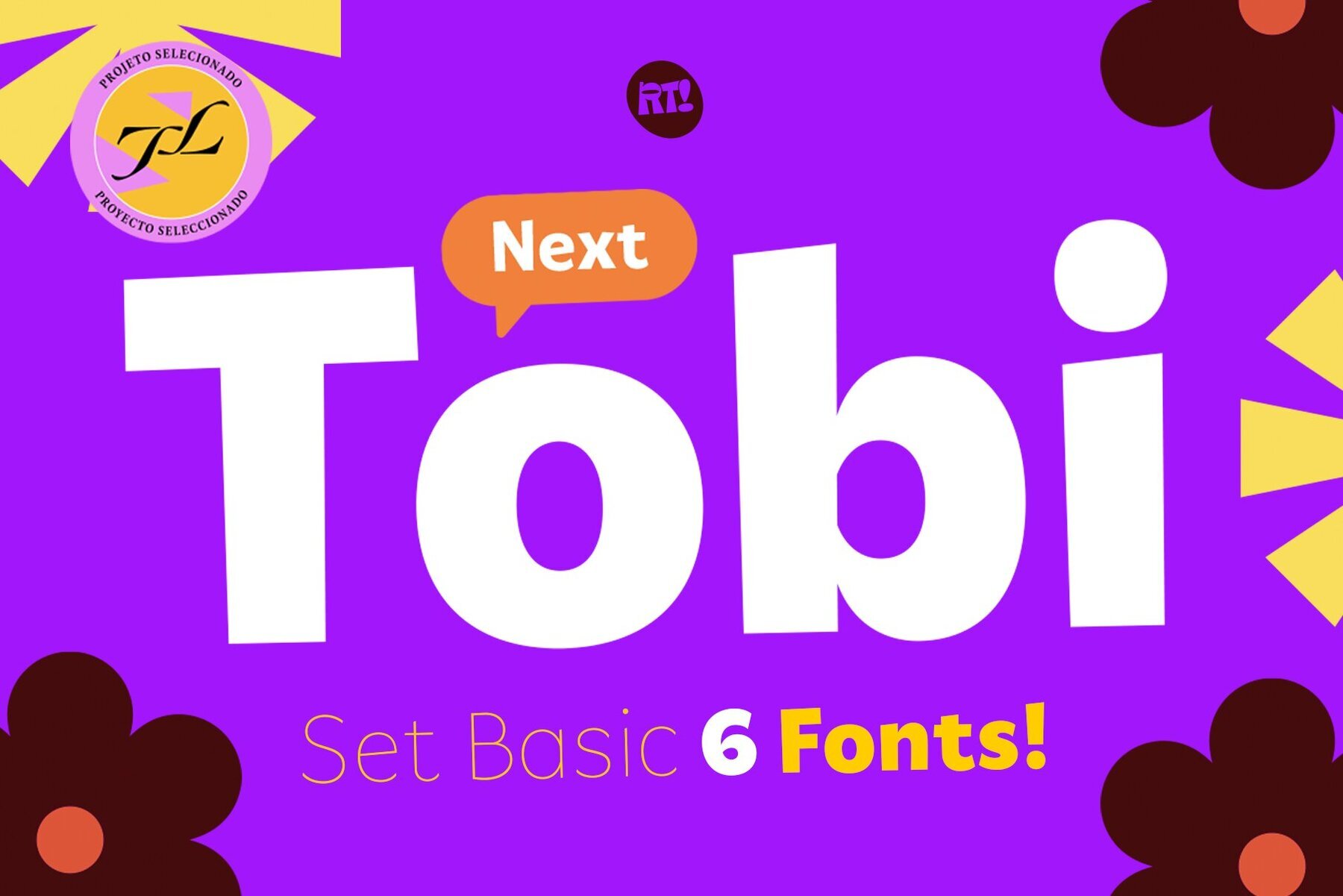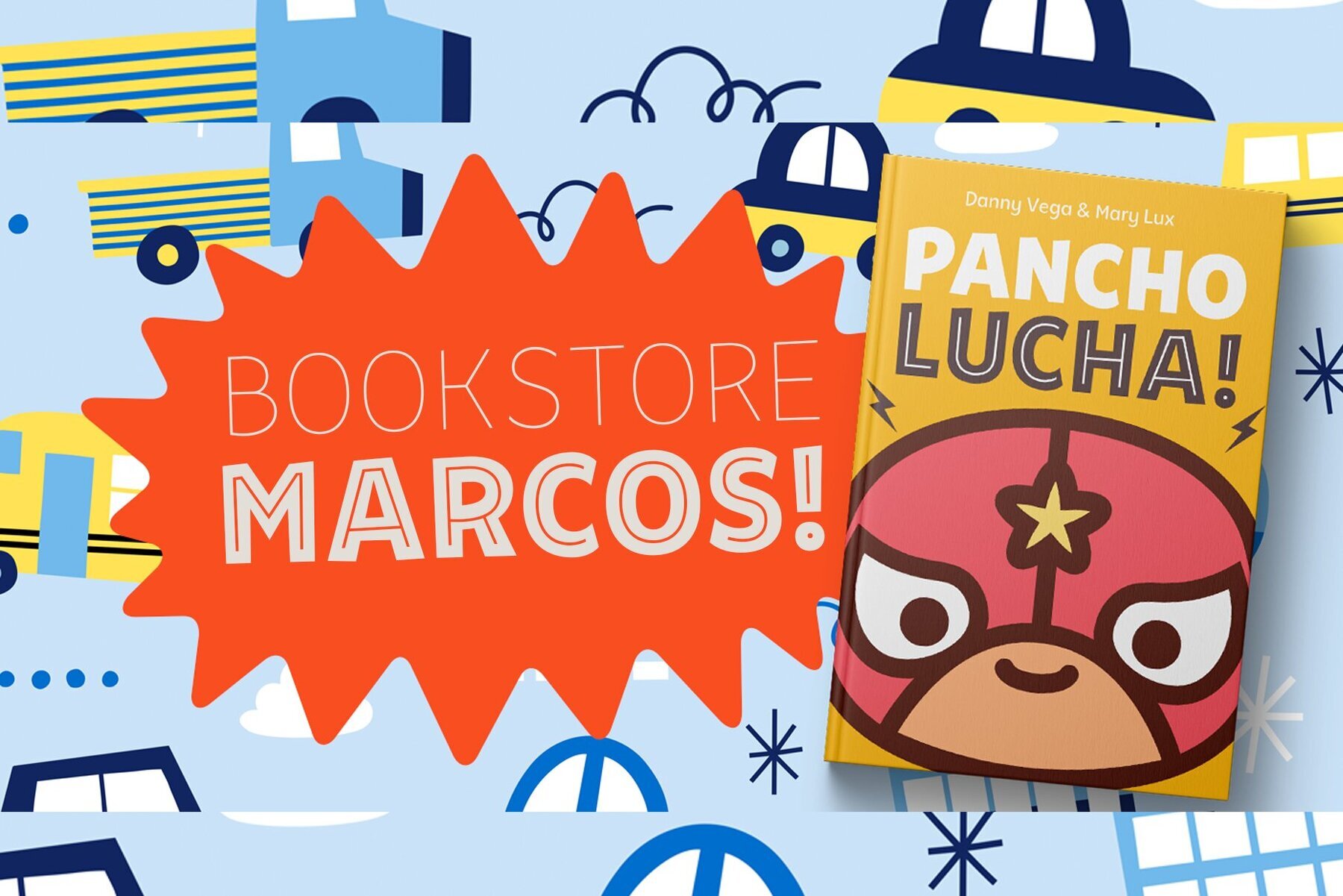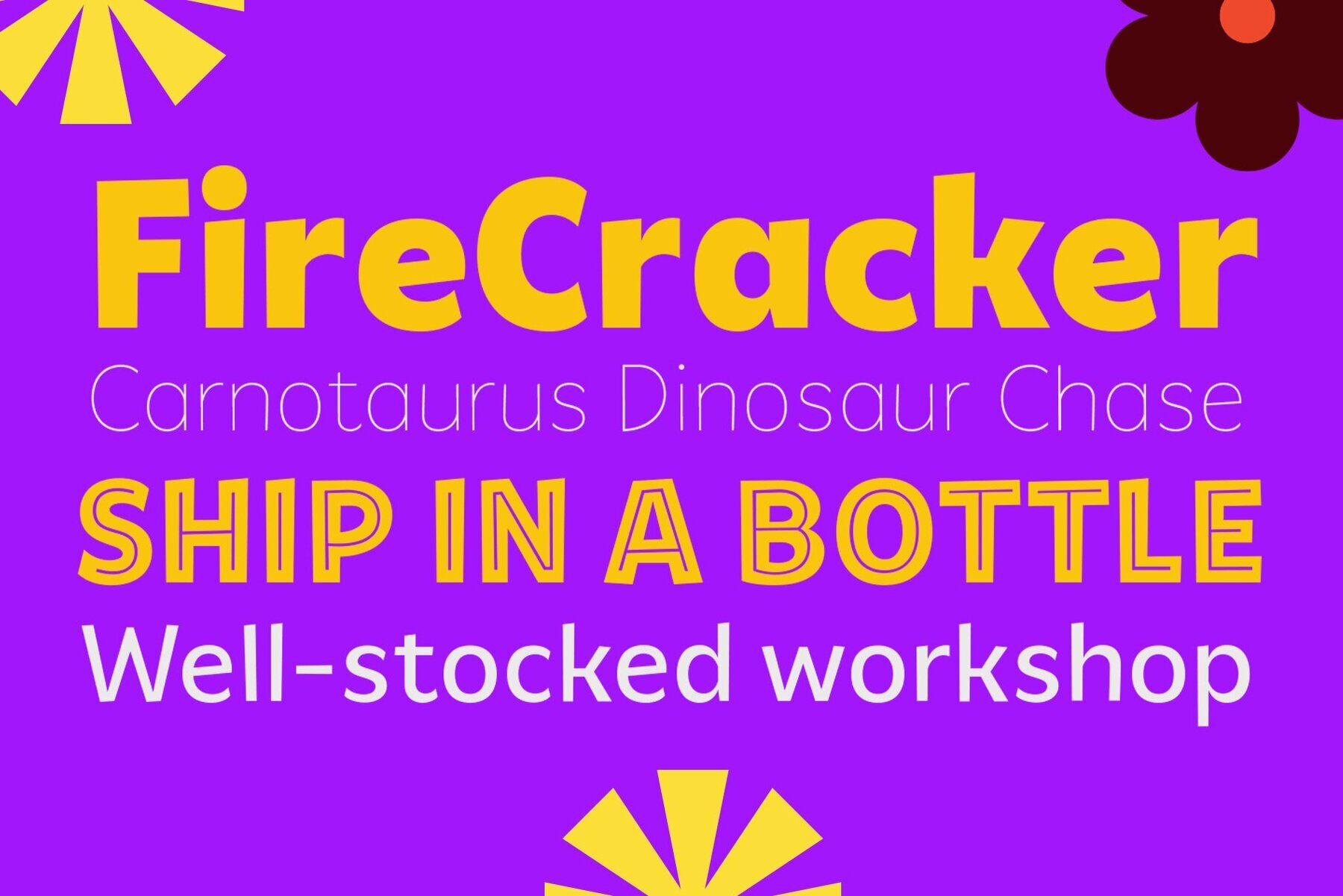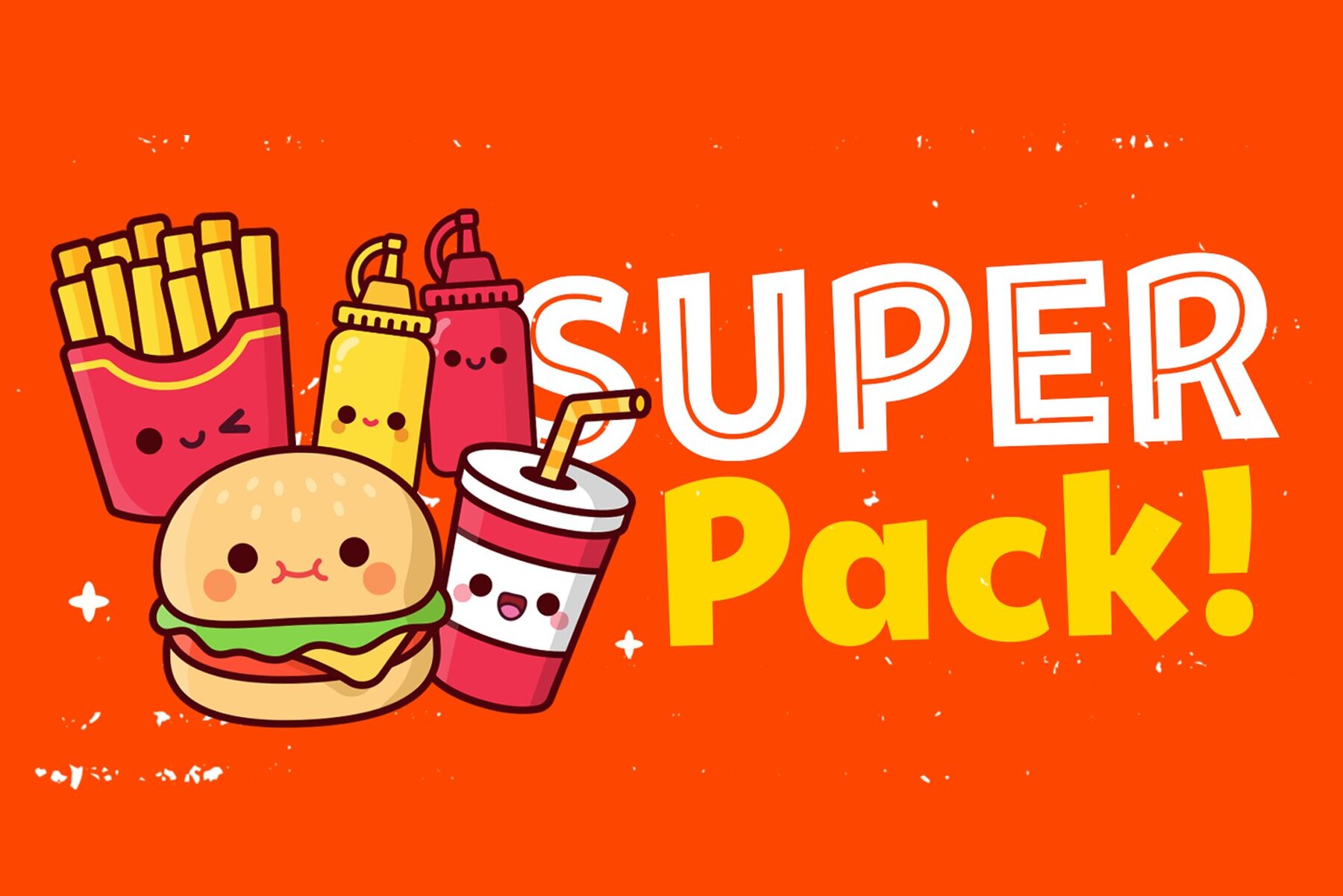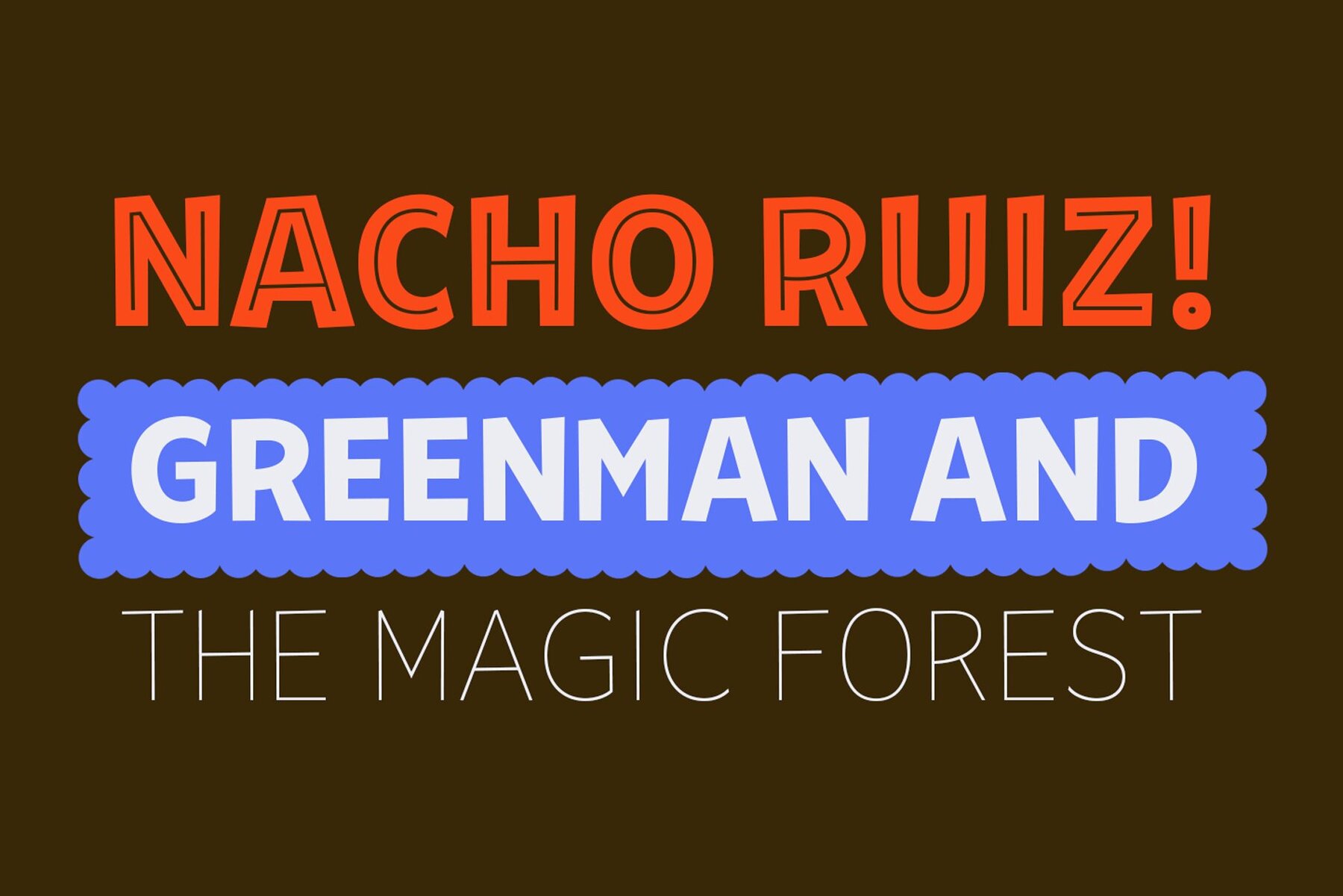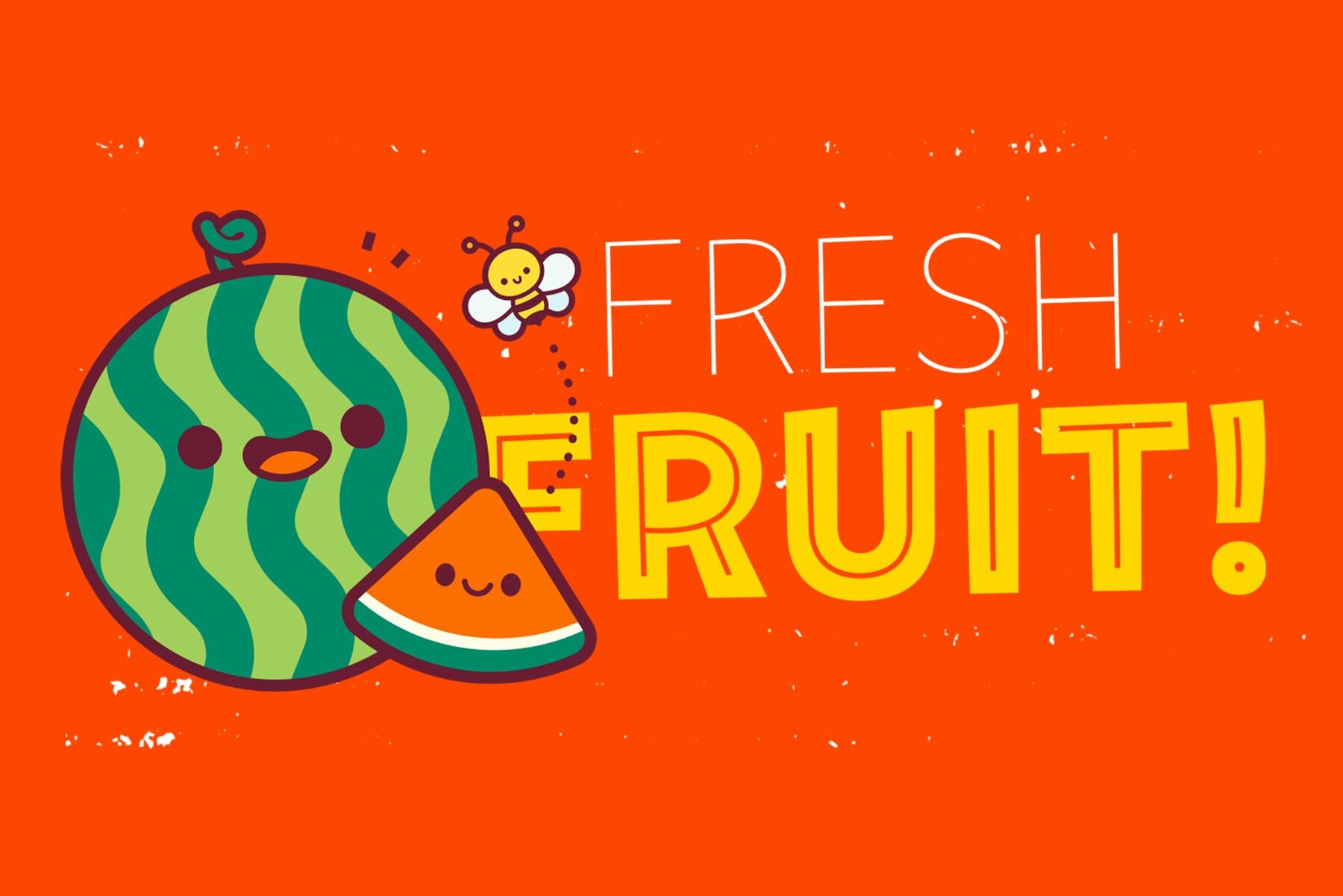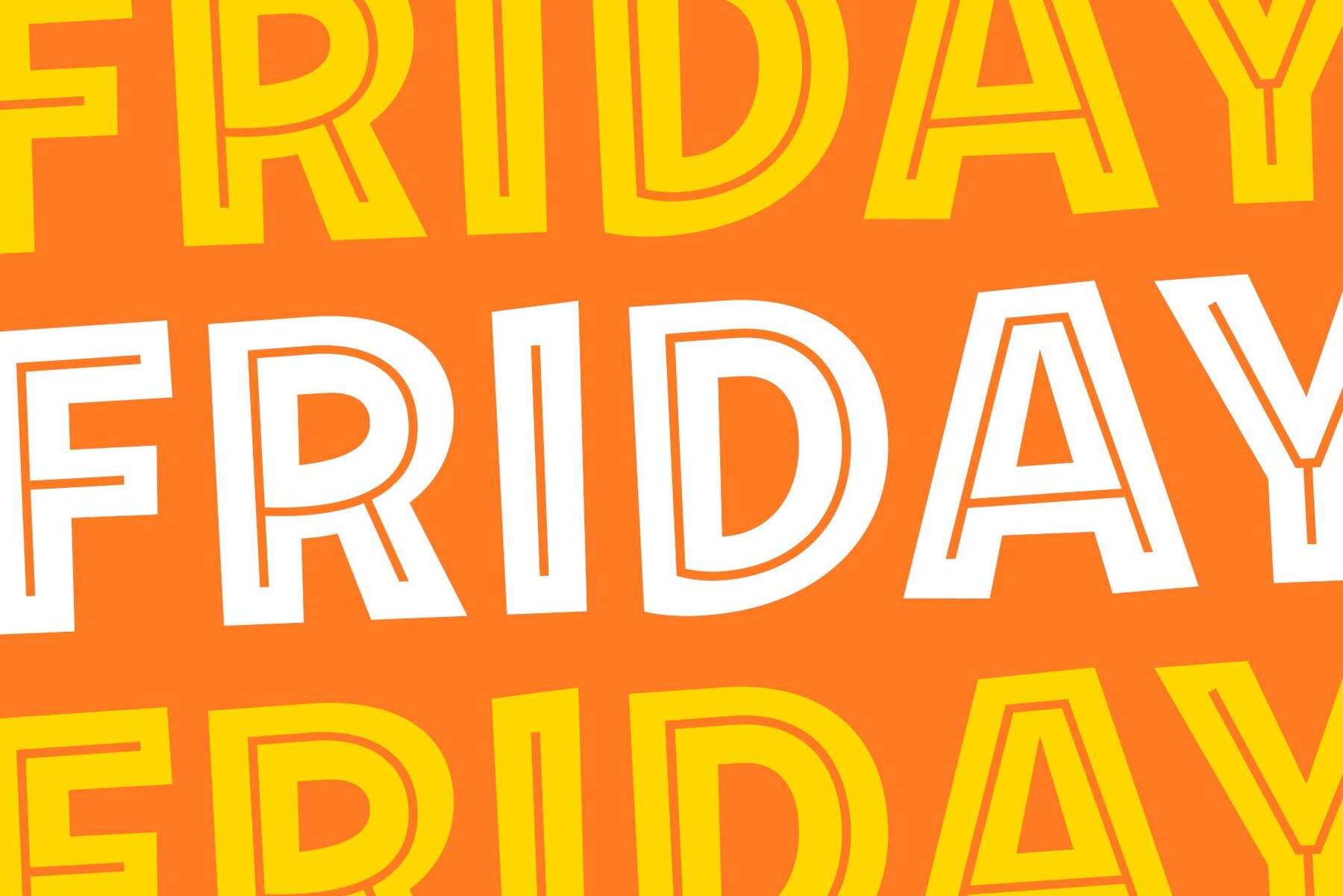
Tobi Next Font
Embrace the flexibility of Tobi Next, a thoughtfully designed typeface collection that brings together six unique fonts for your creative projects. Whether you're working on poster art, branding concepts, or digital designs, Tobi Next offers a spectrum of choices that cater to modern aesthetics while maintaining a touch of elegance.Tobi Next: Versatile Typeface Collection